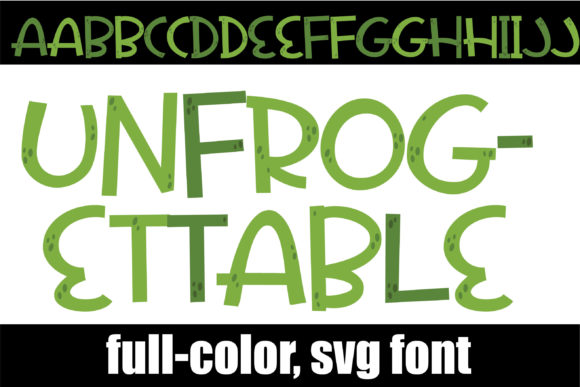
Introducing the Unfrogettable Font, a chromatic masterpiece that will add a splash of vibrancy and intrigue to your creative projects. This captivating font, crafted by the talented team at Illustration Ink, is sure to make an indelible impression on your audience.
Step into a world of enchanting green hues with the Unfrogettable Font. Its verdant charm is enhanced by a playful dance of green spots and warts, creating a visual texture that invites curiosity and exploration. Embrace the magic of nature as this font brings the beauty of the outdoors into your digital designs.
Transcend the boundaries of ordinary typography with Unfrogettable. Its versatility knows no bounds, lending itself effortlessly to a myriad of creative endeavors. From eye-catching logos and branding materials to whimsical invitations and social media graphics, this font is your passport to design excellence.
Unleash your creativity and embark on a journey of self-expression with the Unfrogettable Font. Its vibrant personality will ignite your imagination and inspire you to create designs that resonate with your audience. Let your words dance with color and energy as you weave captivating stories and evoke emotions with every stroke of the keyboard.
Don't settle for mundane fonts that fade into the background. Embrace the Unfrogettable Font, a true standout that commands attention and leaves a lasting impression. Its unique charm and captivating aesthetics will elevate your designs to new heights, ensuring that your message is seen, remembered, and cherished.
Join the ranks of discerning designers who recognize the transformative power of the Unfrogettable Font. Experience the joy of creating designs that captivate, inspire, and ignite imaginations. Let your creativity flourish as you bask in the glory of this chromatic masterpiece. Embrace the Unfrogettable Font today and embark on a creative journey that will leave you breathless.